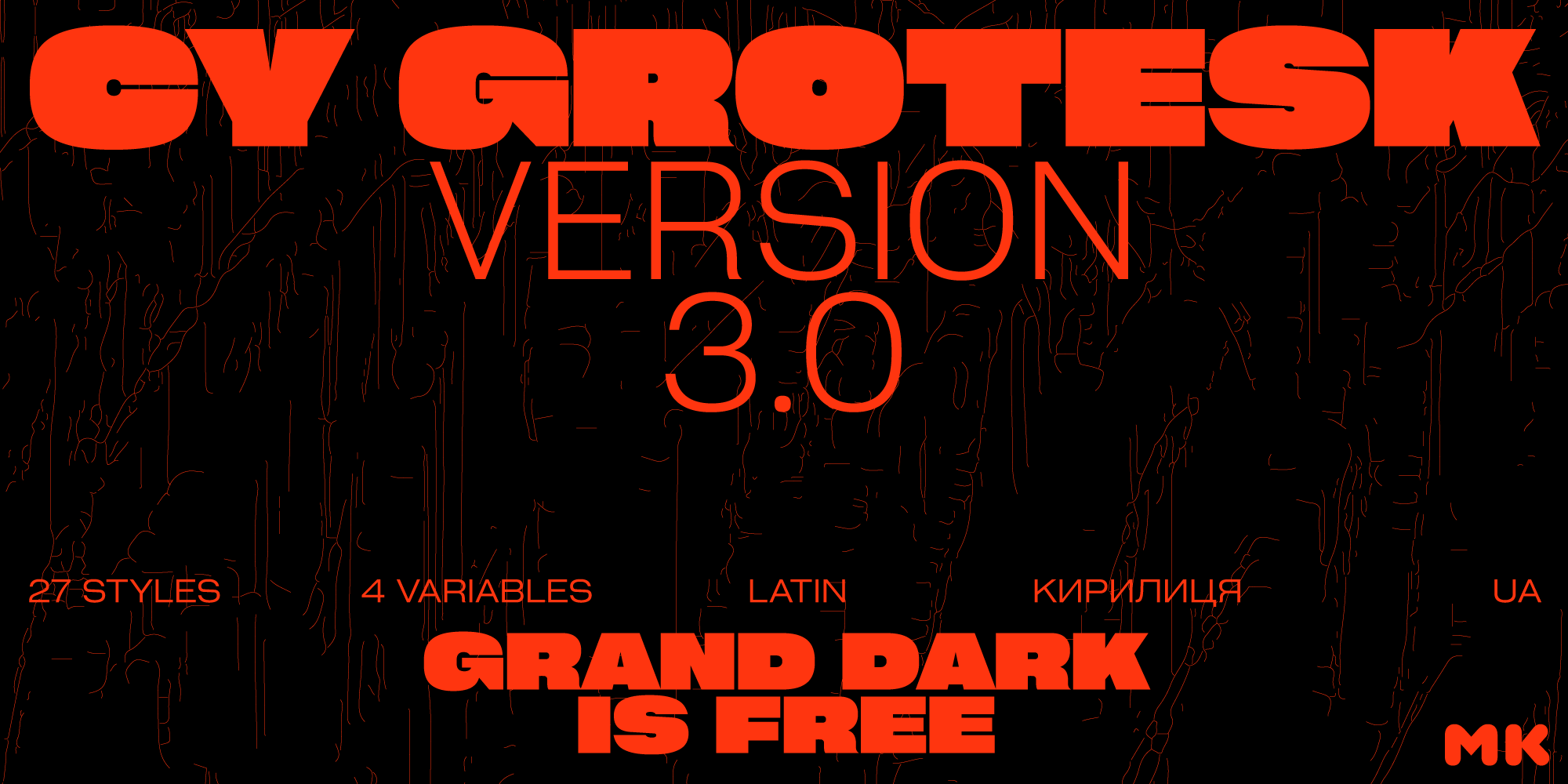
Cy Grotesk Font is perfect for modern branding systems, tech company logos, digital interface design, contemporary packaging, editorial publications, corporate communications, minimalist web design, and sophisticated mobile applications. This versatile sans-serif typeface excels in both large display formats and extended text reading applications.
What makes Cy Grotesk Font exciting is its perfect fusion of classic grotesque tradition with contemporary design sensibilities. The font features clean, neutral letterforms with subtle humanist touches that provide excellent legibility while maintaining distinctive character for memorable brand recognition across all media platforms.
The Cy Grotesk Font family includes extensive weight options from ultra-light to black, plus corresponding italic styles, offering designers comprehensive typographic flexibility. The family provides seamless weight progression and consistent character proportions for creating sophisticated hierarchical typography systems and cohesive brand communications.
Cy Grotesk Font Free Download represents an outstanding choice for designers seeking professional-grade typography that balances functionality with aesthetic appeal. Whether you're developing corporate identity systems, digital products, or editorial designs, this font delivers the reliability and character needed for successful contemporary design solutions.
The precisely engineered letterforms of Cy Grotesk Font ensure exceptional performance across all digital platforms and print applications, making it ideal for responsive web typography, high-resolution displays, and traditional publishing. This versatile typeface combines grotesque heritage with modern technical excellence for outstanding results in professional design environments.